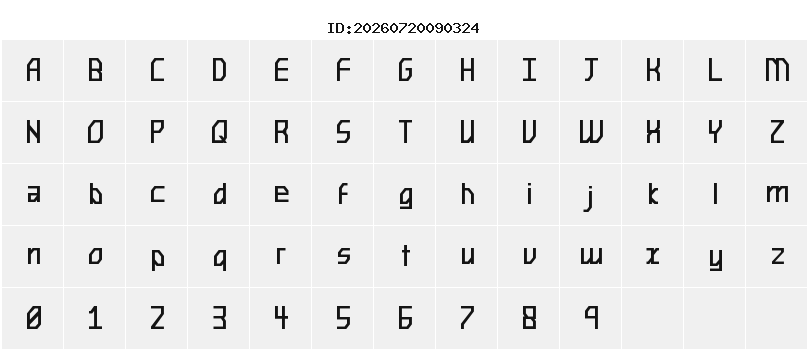
• Font Name: Future n0t Found
Future n0t Found.ttf is a modern, elegant sans-serif font designed for ultimate readability and visual harmony. Perfect for branding, headlines, web design, and print materials.